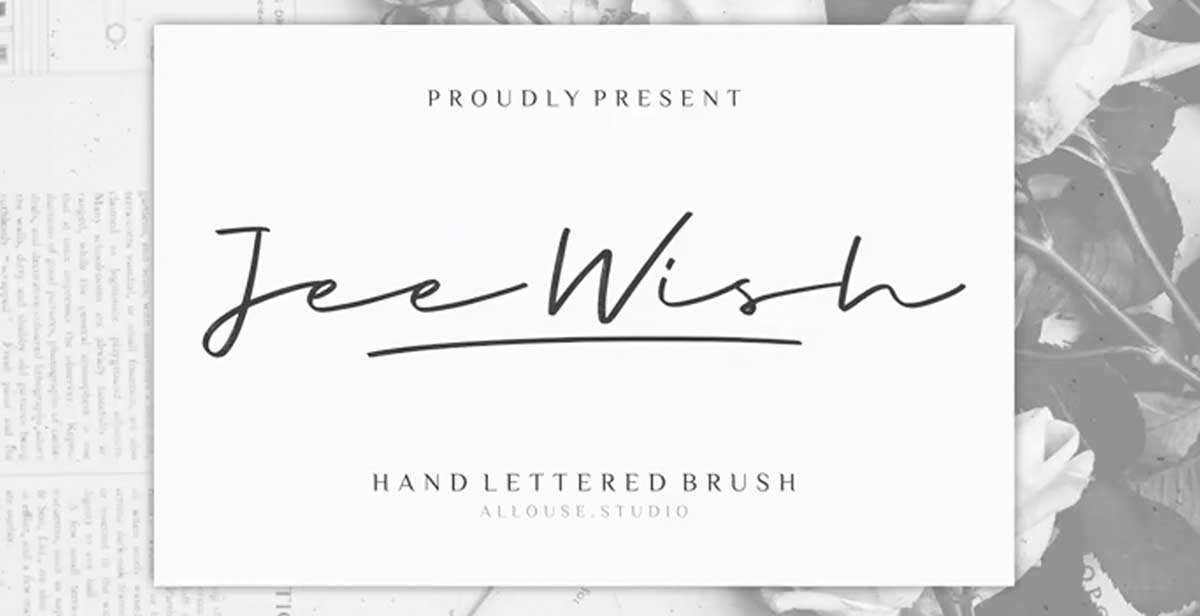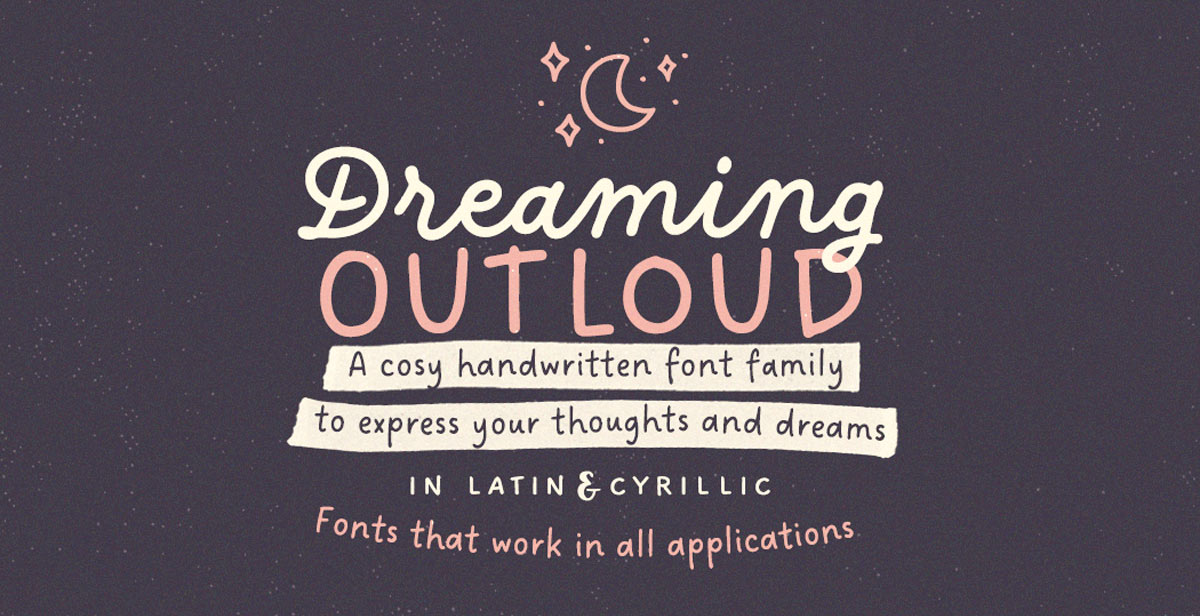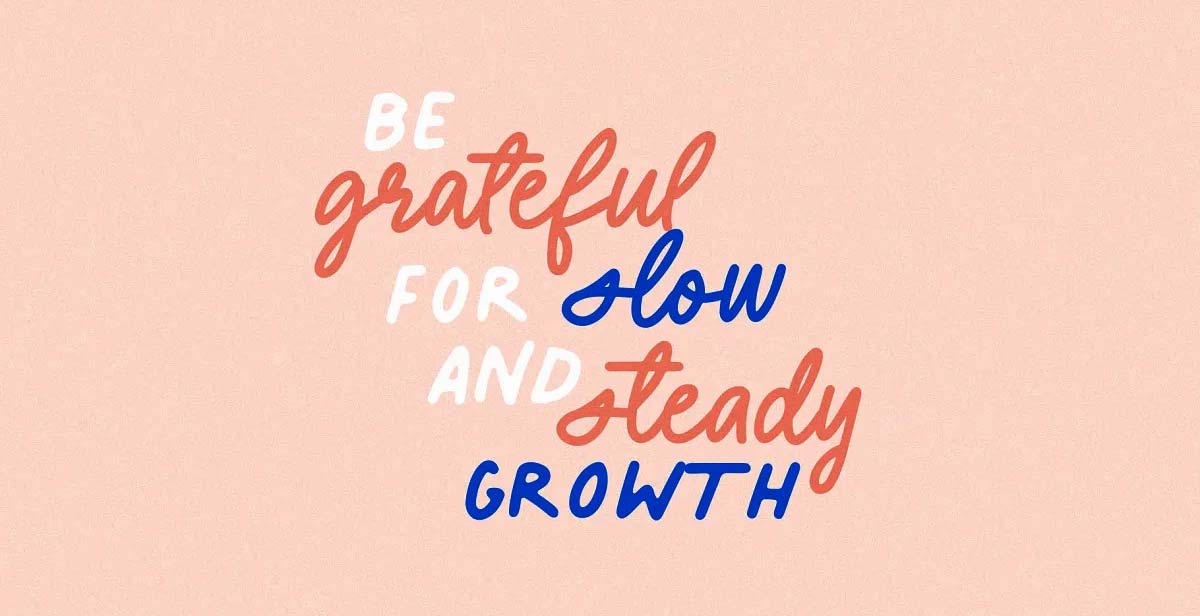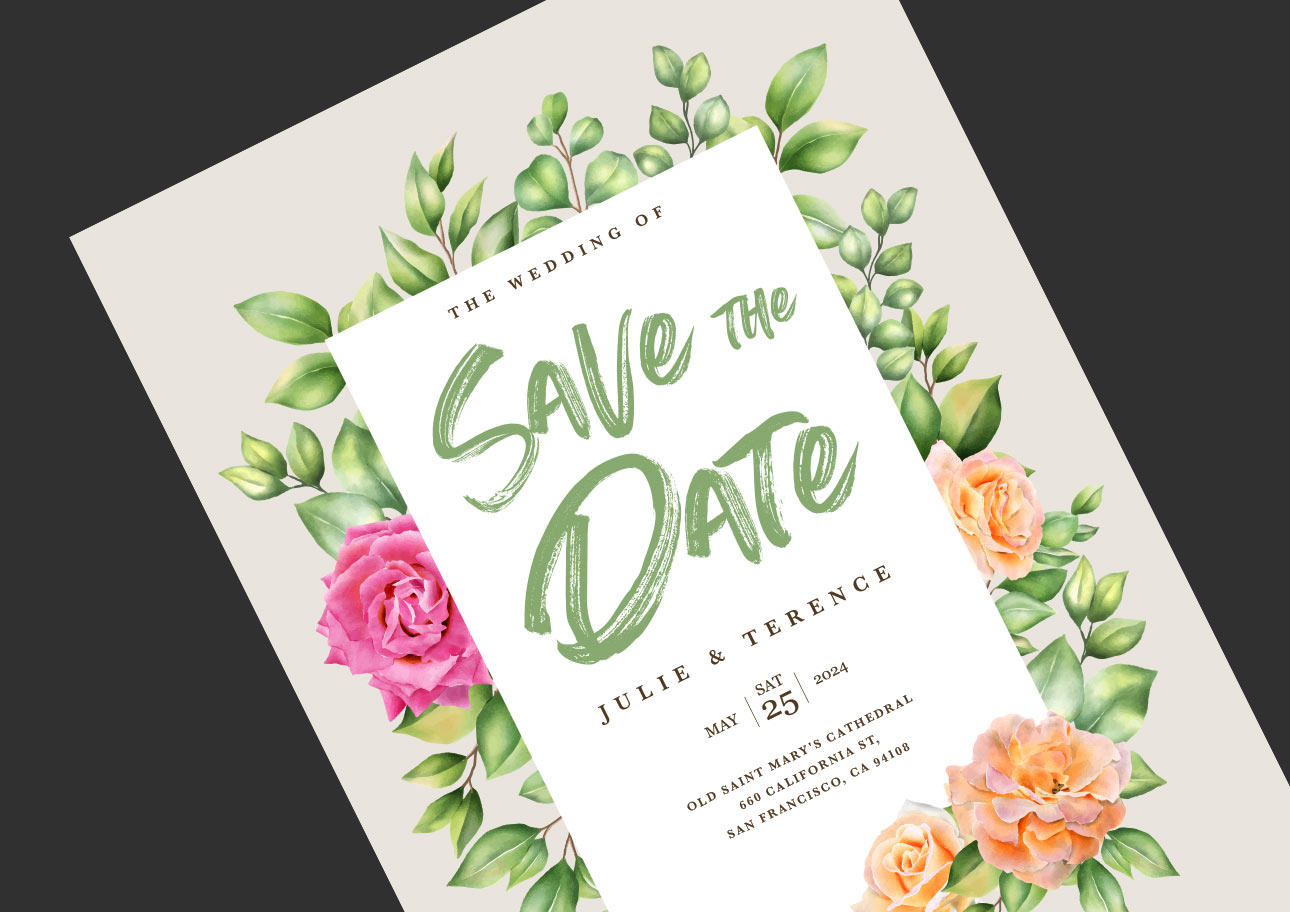
There's nothing more beautiful than handwriting fonts. Through the power of technology, digital handwriting fonts have been created that hold the same depth and personality as a handwritten note. Adding character, style, and authenticity, handwriting fonts transform any project into a more personal one. Also known as handwritten fonts, this typography type is designed to have the same look as human handwriting. Even though not the same as a physically written project, handwriting fonts are still unfiltered, unique, and often portray a sense of honesty.
Gone are the day of handwriting anything, leaving space for handwriting fonts to thrive. "Handwriting" something could be as easy as sitting down behind a laptop and typing away using your favorite hand-written font. It may not have the same look and feel, but whatever you've written can now be edited, spellchecked, and printed multiple times. Whether used to write a personal letter or as part of a marketing campaign, handwriting fonts encapsulate that nostalgic feeling that pen or pencil do so well. A little less polished than calligraphy, this typography definitely has its influential place in the world of fonts.
With so many handwriting fonts to choose from, you can genuinely find whatever style you're looking for. From heavy-handed, thick fonts to delicate, neat ones, there's a beautiful handwriting font for you. But we understand that you might not have the time (or patients) to sift through thousands of fonts! Don't worry; we've got your back! We've taken the overwhelm out of the process and have curated the best handwriting fonts of 2022.
Biro Script Plus
Biro Script Plus Font Family was designed by Ingo Zimmermann, and published by Ingo.
There's no better way to describe this font than the handwriting of someone you may know! And that's precisely what it is! Written freehand with the tip of the ballpoint pen, it is a simple, everyday handwriting script that can be used for almost any project. We see this versatile font being used for everything from personal notes and wedding invitations to sentimental marketing campaigns and other projects. It's a favorite of ours because of its uniqueness while remaining honest and familiar.
Summer Loving Regular
Summer Loving Font Family was designed by Nicky Laatz
This font is impressive, with natural hand-brushed strokes to give whatever project you're working on that ultra-realistic and natural look! Slightly translucent, this font is easy to read and quite eye-catching. Even though messy in parts, it is clear and direct and leaves no room for confusion on what is trying to be said. We envision this bold font being used on primarily Wedding Invitations.
Jee Wish
Jee Wish Font Family was designed by Fachrizal Yusuf, and published by Allouse Studio.
With narrow extended lettering, this handwriting font is simple yet makes an exquisite statement. To create the effortless flow of this font, a brush was used for handwriting each letter. Even though stylized, it is amazingly eligible, making it perfect for any personal project. Whether a notepad design, wedding invitation, or thank you note, this versatile font works well with other fronts but can stand on its own beautifully.
Lemon Yellow Sun Regular
Lemon Yellow Sun Font Family was designed by David Kerkhoff, and published by Hanoded.
Opt for a playful yet polished font if you're looking for Lemon Yellow Sun Regular. The capitalized font is eligible while still having the imperfections we love in handwriting fonts. Put this font on billboards, banners, business cards, or any messaging that needs to be clearly seen and read. With a child-like element, it could also work well with children's content and party invitations. Lemon Yellow Sun Regular is part of a family of six styles, including bold and italic versions of the regular font.
Calton Elegance Script
Calton Elegance Font Family was designed by Dwi Ahidian, and published by Lemonthe.
As the name suggests, this handwriting font exudes elegance — sophistication, luxury, and indulgence. This cursive font is designed with long flowing lines and beautifully clear lettering, perfect for wedding stationery or luxury branding. It effortlessly encapsulates the authenticity of something handwritten while almost being calligraphy-like. Calton Elegance Script is part of a family of fonts that also includes the following:
- Calton Elegance Regular: Even though not a handwritten font, this bold yet beautiful perfectly compliments Calton Elegance Script.
- Calton Elegance Italic: If you're looking for a little more drama but something that still beautifully compliments Calton Elegance Script, opt for this font.
Through the power of technology, digital handwriting fonts have been created that hold the same depth and personality as a handwritten note.
Hand Of Sean
Hand Of Sean Font Family was designed by Sean Johnson.
Created using the designer's own handwriting, this font exudes personality and has remained a popular font since its creation in 2008. The entire print script is straightforward to read, making it ideal for almost any project. With so much character, the simple but effective font can transform any marketing campaign into a personal, authentic, or moving one.
Avoid Business-Like Copy
Handwriting fonts are made for sharing personal stories, highlighting intimate moments, and exuding honesty. Often hard, business-like tones do not compliment these types of font, and it could be misaligned and confusing.
We hope you've found a font that suits your brand personality and can use it in a way that encompasses both the richness and honesty of the font and your brand messaging.